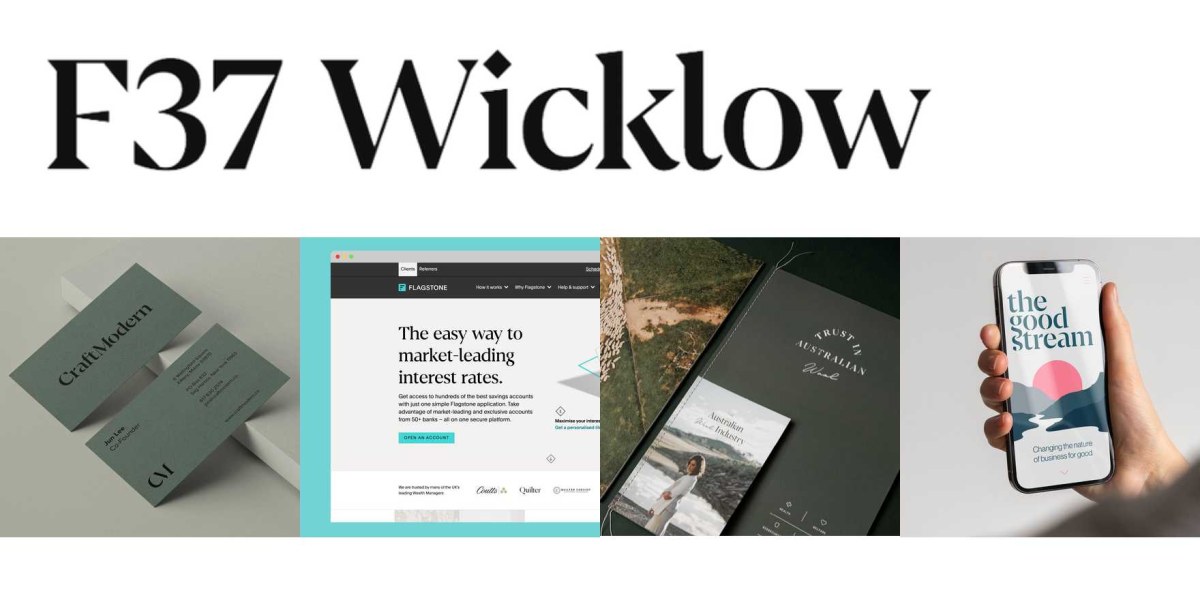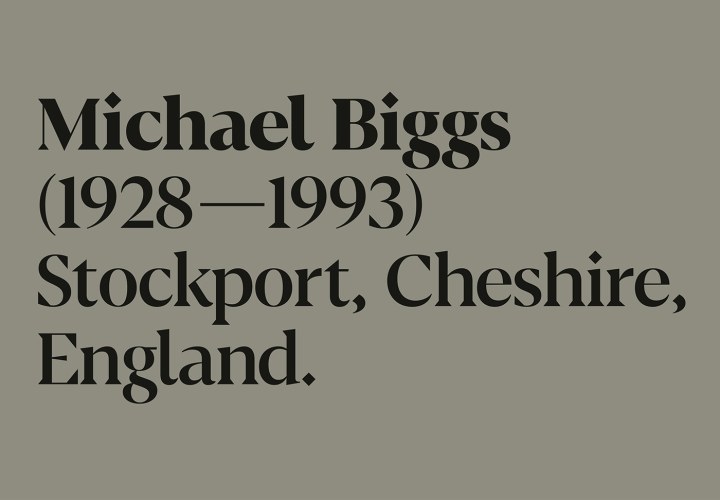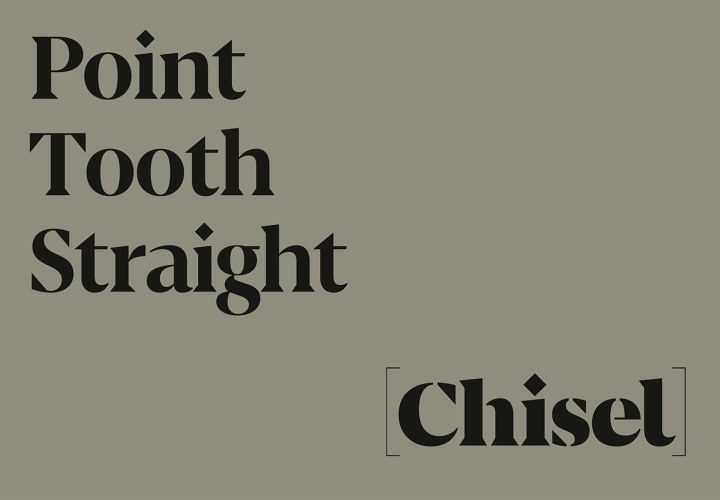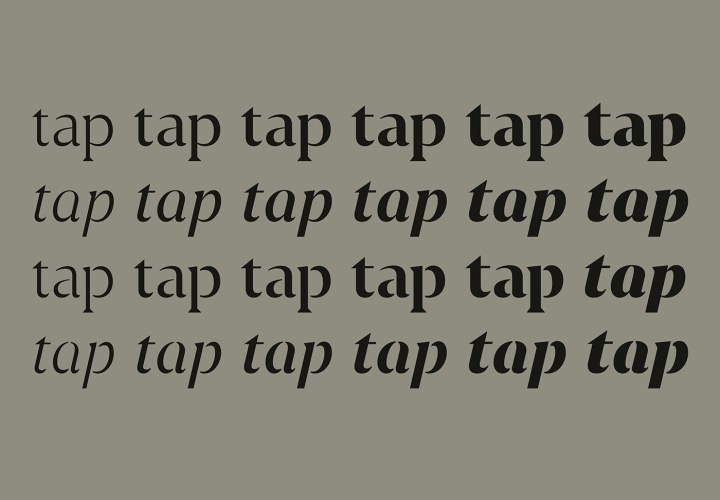
F37 Wicklow Font Family
Set in stone — F37 Wicklow takes inspiration from Gaelic letter carvings by the remarkable sculptor Michael Biggs. The starting point for F37 Wicklow is Irish sculptor Michael Biggs’ intricate letter carvings on the Arbour Hill Memorial in Dublin. Biggs’ ‘Gaelic Alphabet’ mixes wonderful geometric shapes and F37 Wicklow reflects this by combining sharp, triangular serifs and diamond tittles with circular forms.
It’s a typeface driven by visual contrast. Biggs used slightly different letterforms to distinguish the Gaelic and English texts on the memorial. We’ve mixed things up a bit, transferring some of the pleasing shapes from the Irish Uncial alphabet to our Roman alphabet — for example the curved ‘bay’ (b) and ‘ell’ (l). The graphic, triangular serifs make F37 Wicklow a great choice for branding as well as newspaper and editorial headlines. All the weights come with matching true italics and stencil weights.